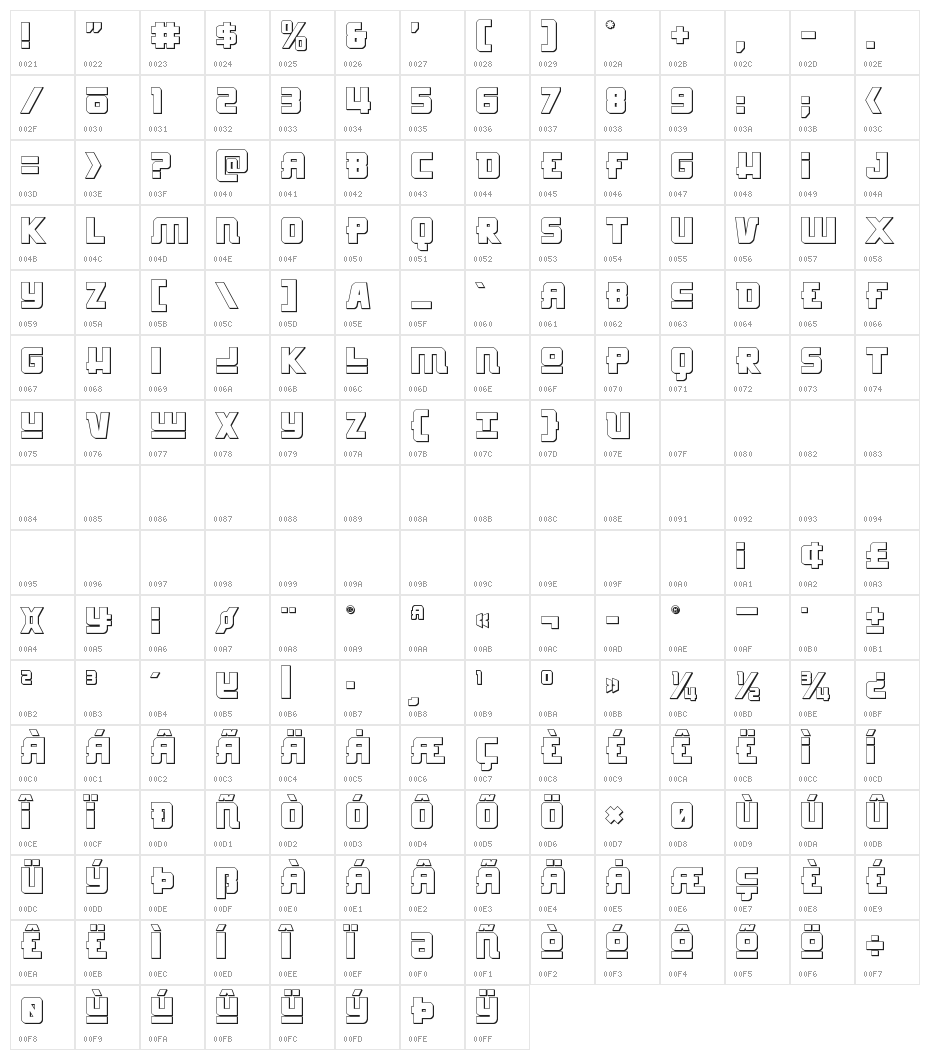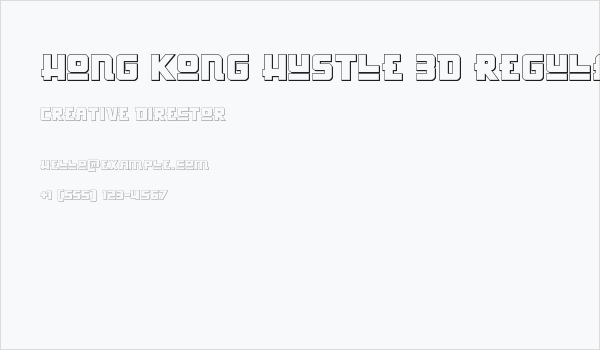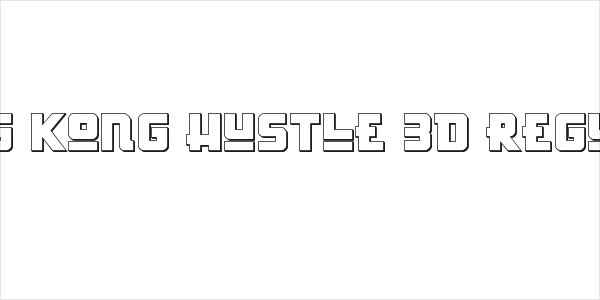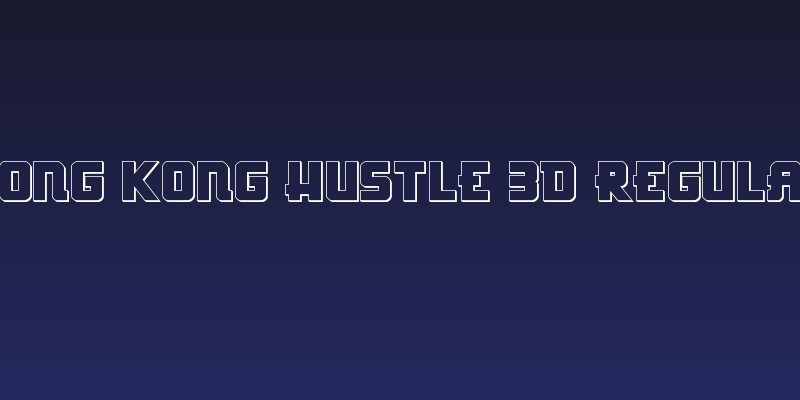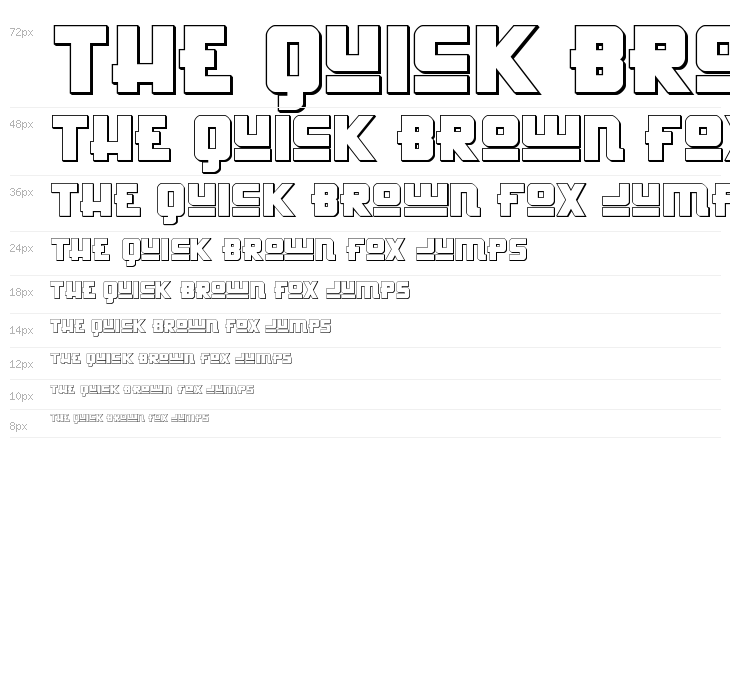
Hong Kong Hustle 3D Regular Font
Hong Kong Hustle 3D Regular Description
This font features a bold, three-dimensional design with a distinct outline that gives each character a blocky, futuristic appearance. The letters are uppercase and lowercase, with numerals and a variety of special characters. The style is reminiscent of retro arcade games, with a playful yet robust aesthetic. The geometric shapes and clean lines make it stand out, while the 3D effect adds depth and visual interest. This font is ideal for projects that require a strong, eye-catching display typeface.
| Overall Style | Retro, Futuristic |
| Proposed Projects | Perfect for video game titles, posters, logos, and any design needing a bold, futuristic look. |